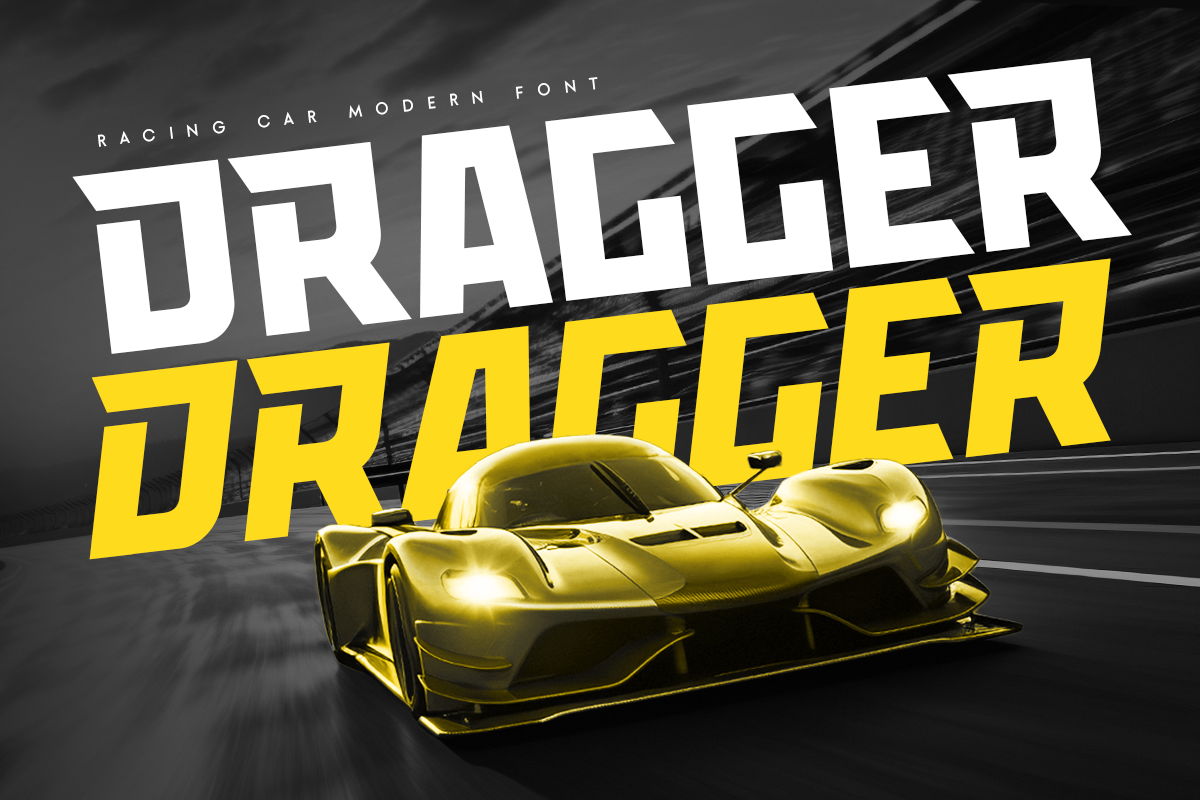
Dragger - Sport Racing Car Font
Dragger delivers high-octane typography designed specifically for sport racing and action-packed branding projects. This bold racing car font brings modern energy and dynamic style to your headlines, making it perfect for sports, technology, action, and fighting themes. Crafted with a bold action aesthetic and contemporary feel, Dragger helps your main concepts command attention and stand out from the competition. What's included: Regular and Italic character sets for maximum versatility 4 compl...